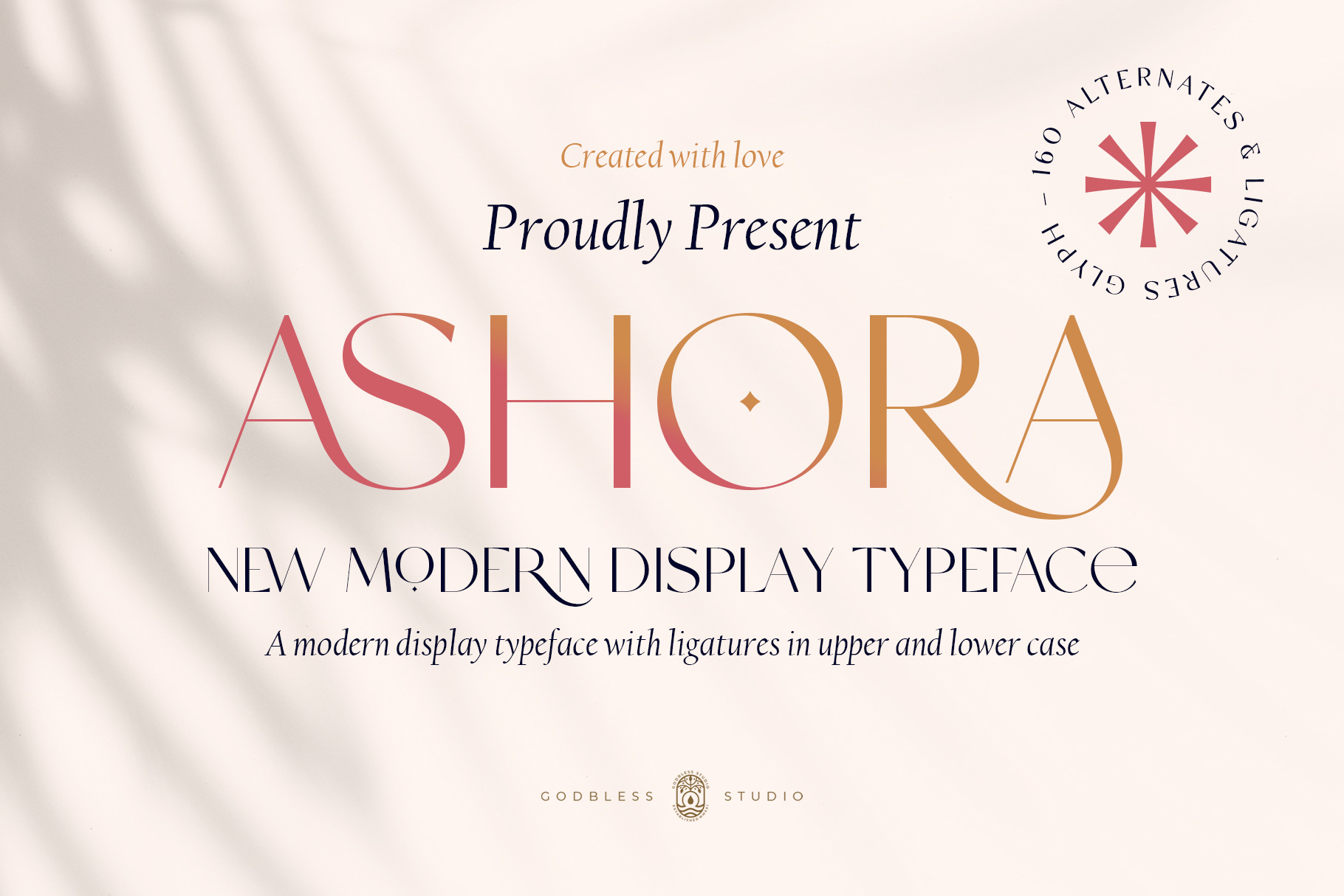
Ashora - Display Typeface
Ashora is an elegant, unique modern display typeface with loads of style font that uses ligatures to smoothly link letters. The large selection of stylistic alternations and ligatures makes this font extremely versatile. Perfect for elegant projects, luxurious branding, wedding invitations, and feminine logo design. Combine this font with other sans serif typefaces for a modern aesthetic.
Ashora is also included full set of:
- Uppercase & Lowercase letters
- Stylistic Alternates Character
- Multilingual characters
- Ligatures Collection